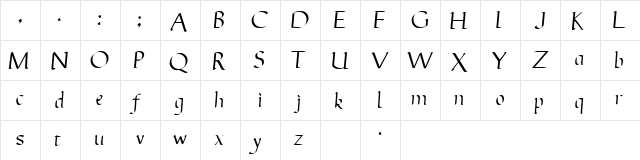
FinalRoman Italic
FinalRoman is a composed and adaptable typeface that performs quietly and consistently across a wide range of design contexts. Its italic angle brings a sense of urgency and motion to the letterforms.